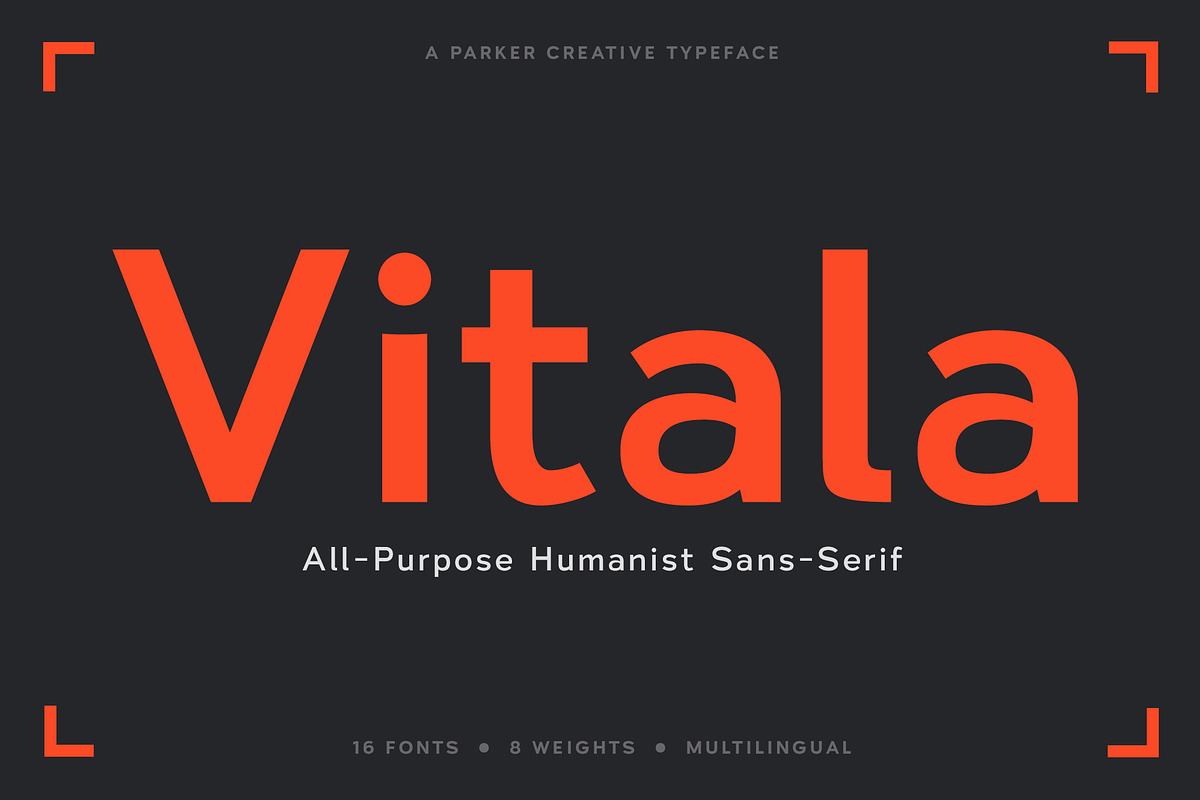
Vitala Humanist Sans-Serif Font Free Download is a clean, modern typeface that combines the warmth of humanist design with the clarity of a sans-serif structure. Perfect for branding, editorial layouts, websites, and professional presentations, this font offers both readability and elegance in one balanced package.
Its subtle curves and natural rhythm make it easy on the eyes, while still maintaining a strong presence. Whether you're creating tech branding, startup materials, or minimalist graphics, Vitala delivers a professional yet approachable tone.
Designers love its versatility and refined character, making it a staple for both print and digital use. Enhance your typography with clarity and class—download Vitala Humanist Sans-Serif Font Free Download and elevate your next project with smart, modern design.